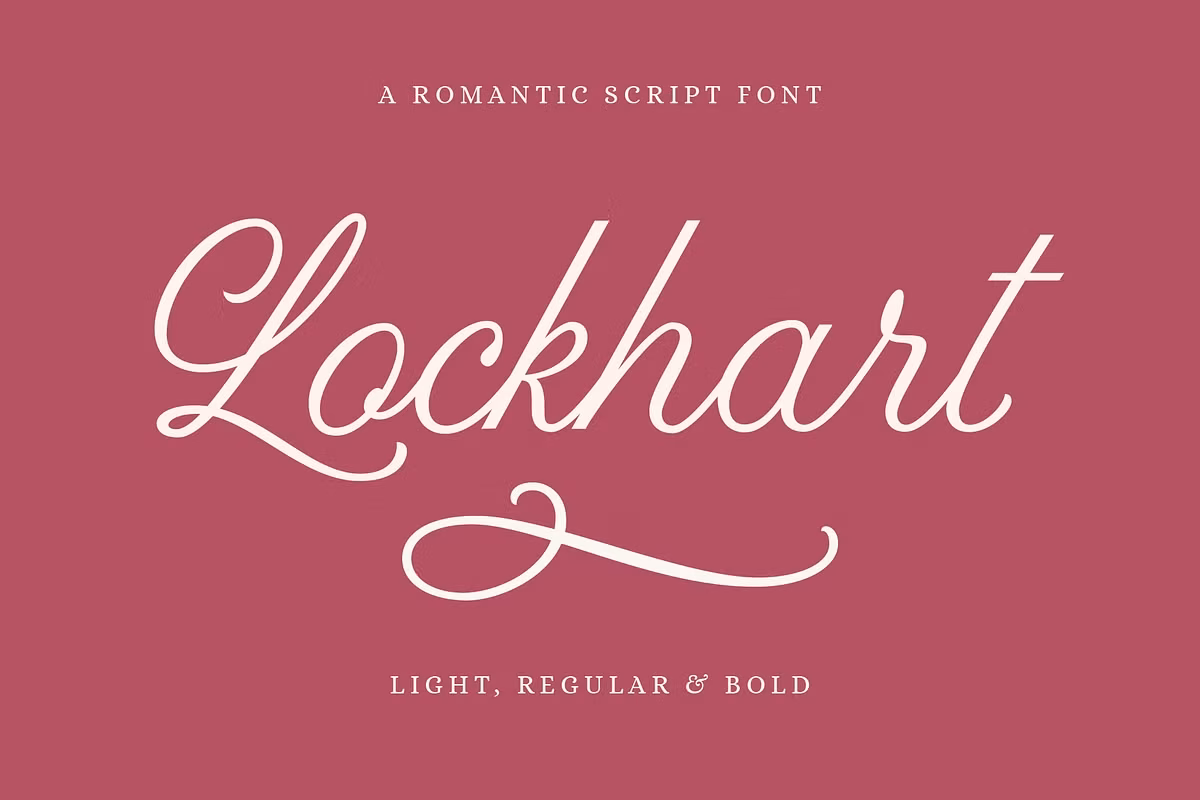
Lockhart – Romantic Script Font Free Download is an elegant and flowing script typeface designed to evoke feelings of love and warmth. With its smooth curves, delicate swashes, and sophisticated style, Lockhart is perfect for wedding invitations, romantic branding, love letters, greeting cards, and any design that needs a personal, heartfelt touch.
Its graceful letterforms and classic calligraphy style bring timeless beauty to any project. Whether you’re designing for a luxury brand, a heartfelt message, or a special occasion, Lockhart adds a touch of romance and elegance to your typography.
Designers love Lockhart for its versatility and ability to bring sophistication and charm to both print and digital projects. Want to add a romantic flair to your designs? Download Lockhart – Romantic Script Font Free Download and let your typography speak the language of love.